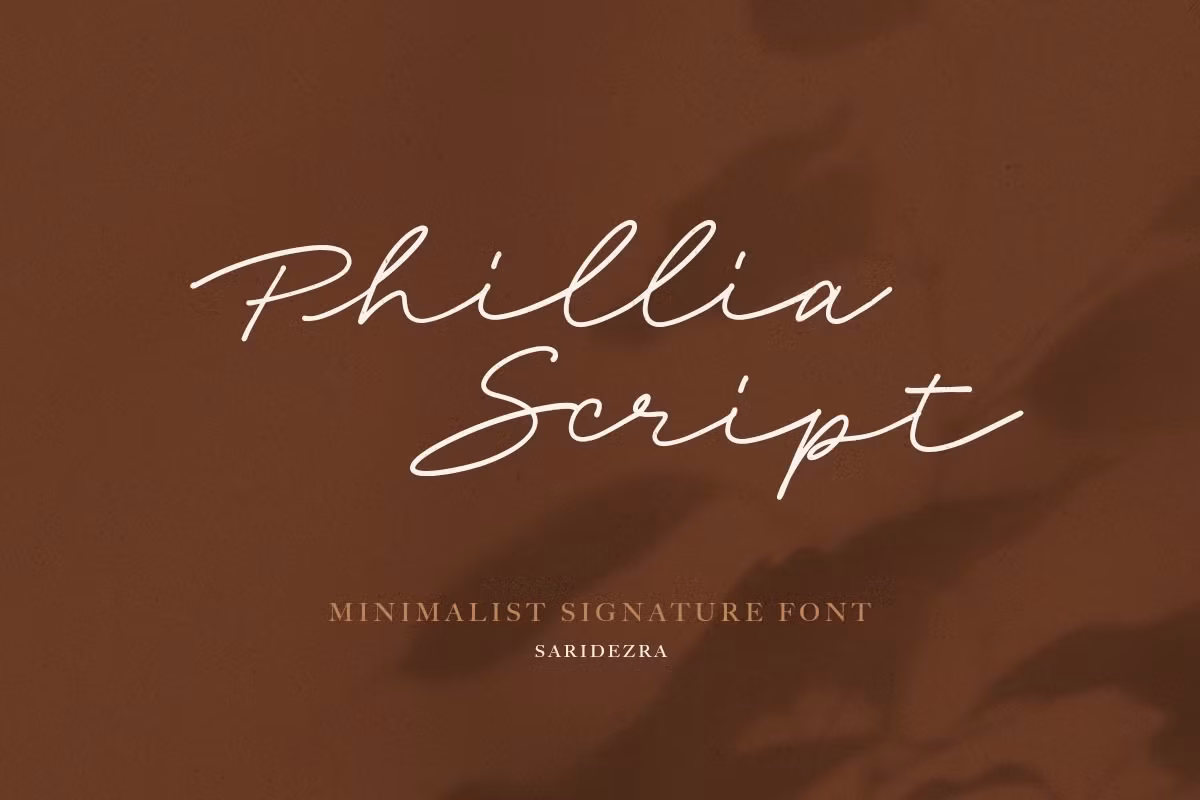
Phillia - Minimalist Signature Font Free Download
The Phillia - Minimalist Signature Font Free Download is an elegant and refined signature-style font that brings a minimalist yet sophisticated feel to your designs. Perfect for creating custom logos, branding materials, invitations, personal stationery, and social media graphics, this font adds a delicate and classy touch to any project. Please note, for commercial use, a license must be purchased. You can download it for free for testing purposes.
With its smooth, flowing strokes and clean lines, the Phillia - Minimalist Signature Font Free Download is ideal for projects that require a personal, high-end touch. Whether you're designing for luxury branding, creative events, or professional portfolios, this font will give your designs a polished and unique flair.